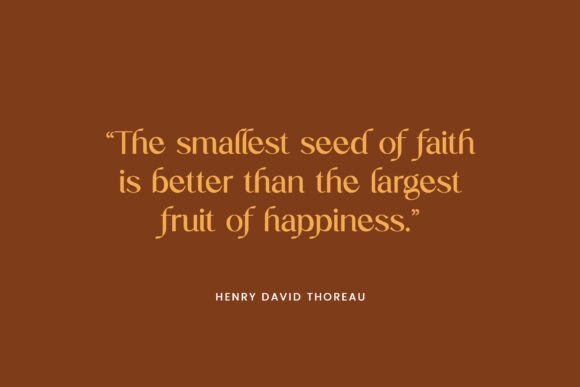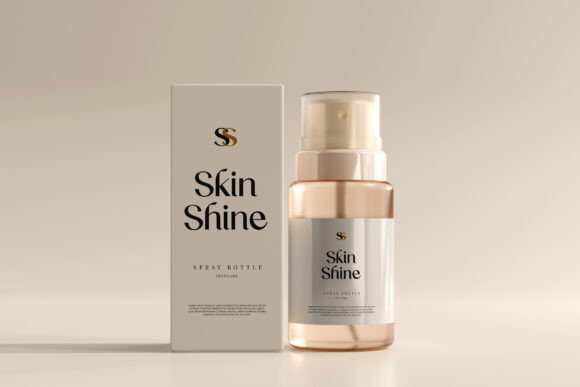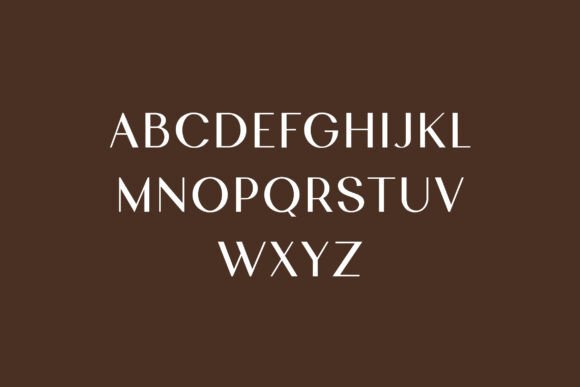
Introduction to Jekaterina Font
Jekaterina is a modern serif font with a clean and elegant look.
It has thin, stylish lines with small details on the letters, making it feel classic yet fresh Great for titles and branding, Jekaterina adds a touch of sophistication to any design.
Why Choose Jekaterina Font?
Jekaterina Font offers exceptional quality and versatility, making it a valuable addition to your design toolkit. Whether you’re creating for personal projects or commercial use, Jekaterina Font delivers professional results.